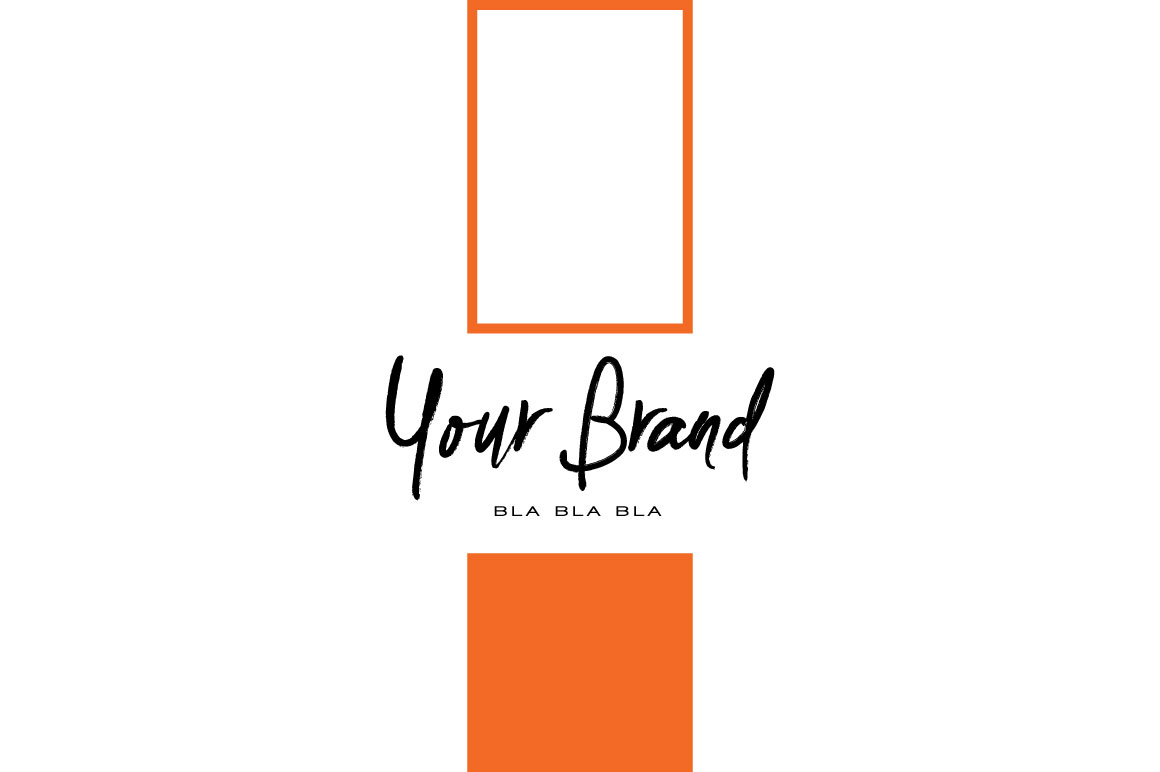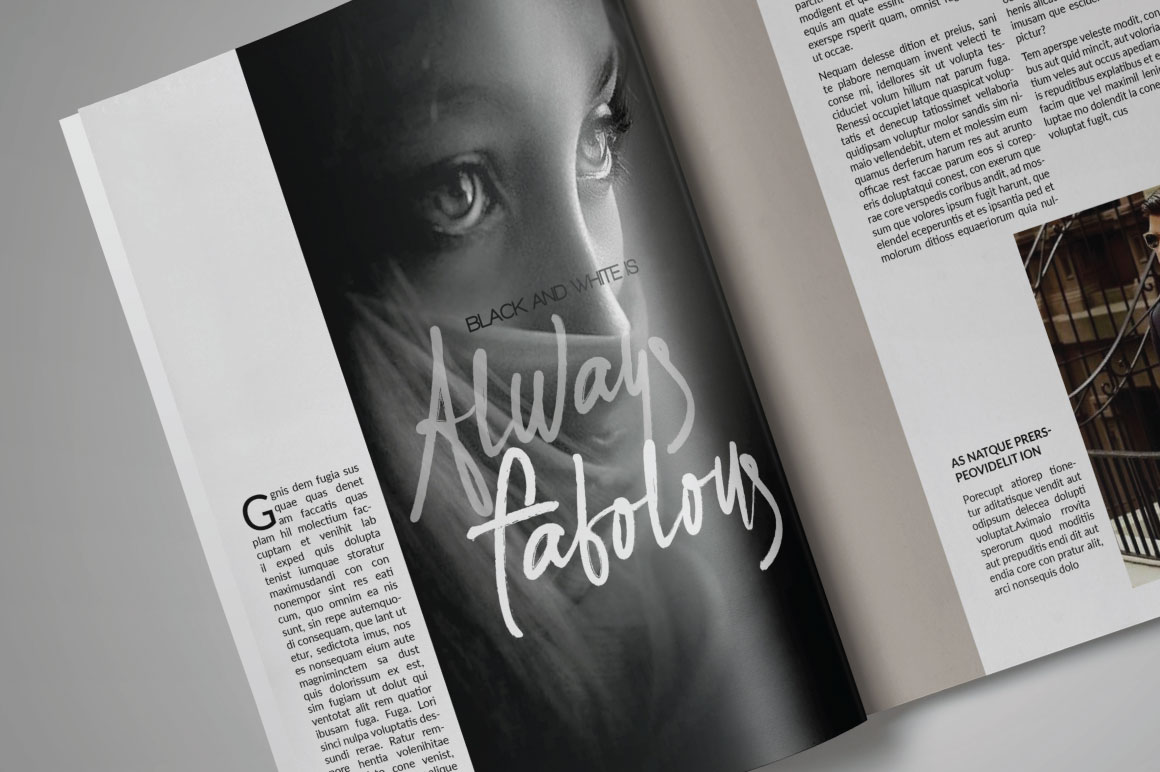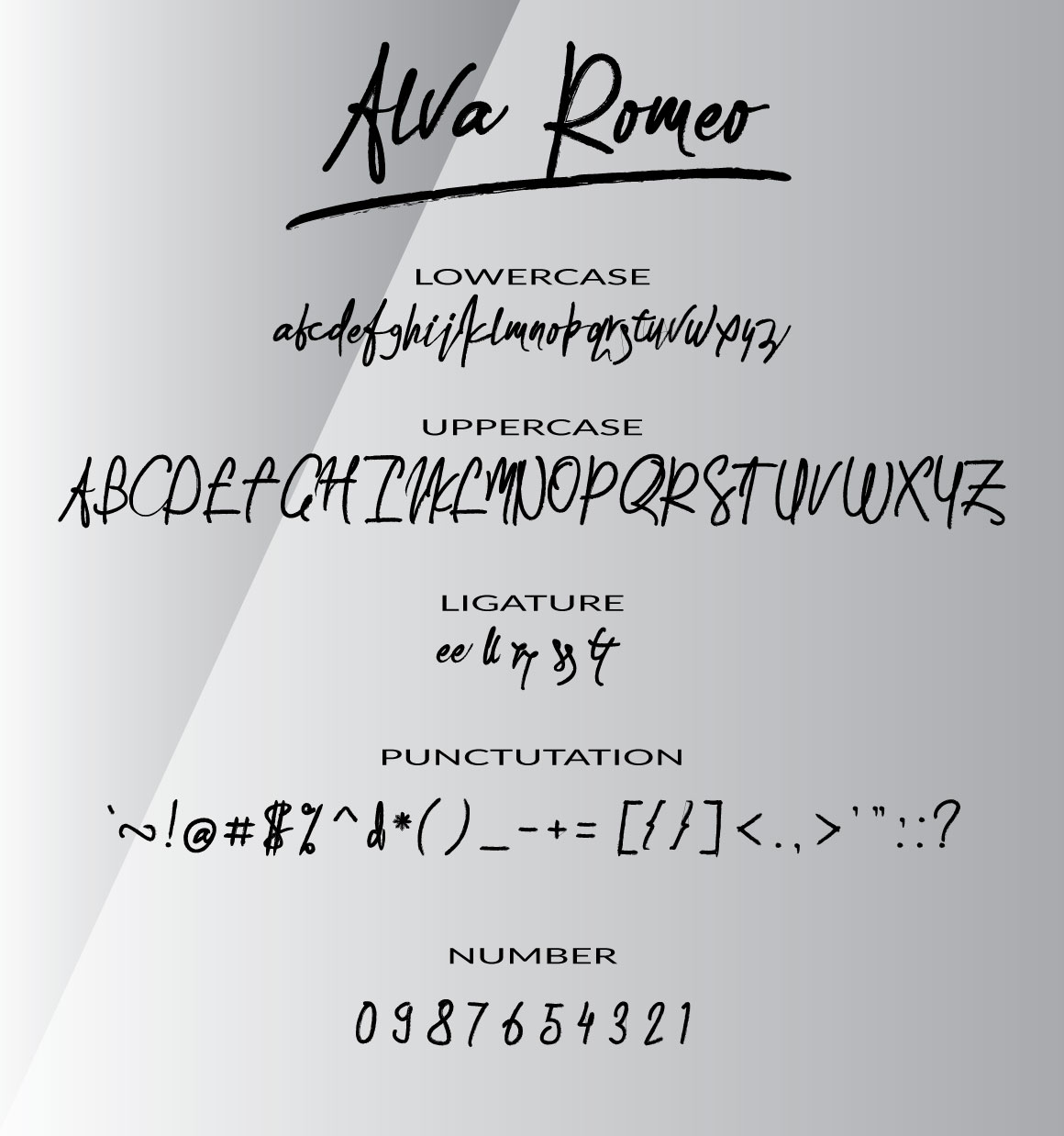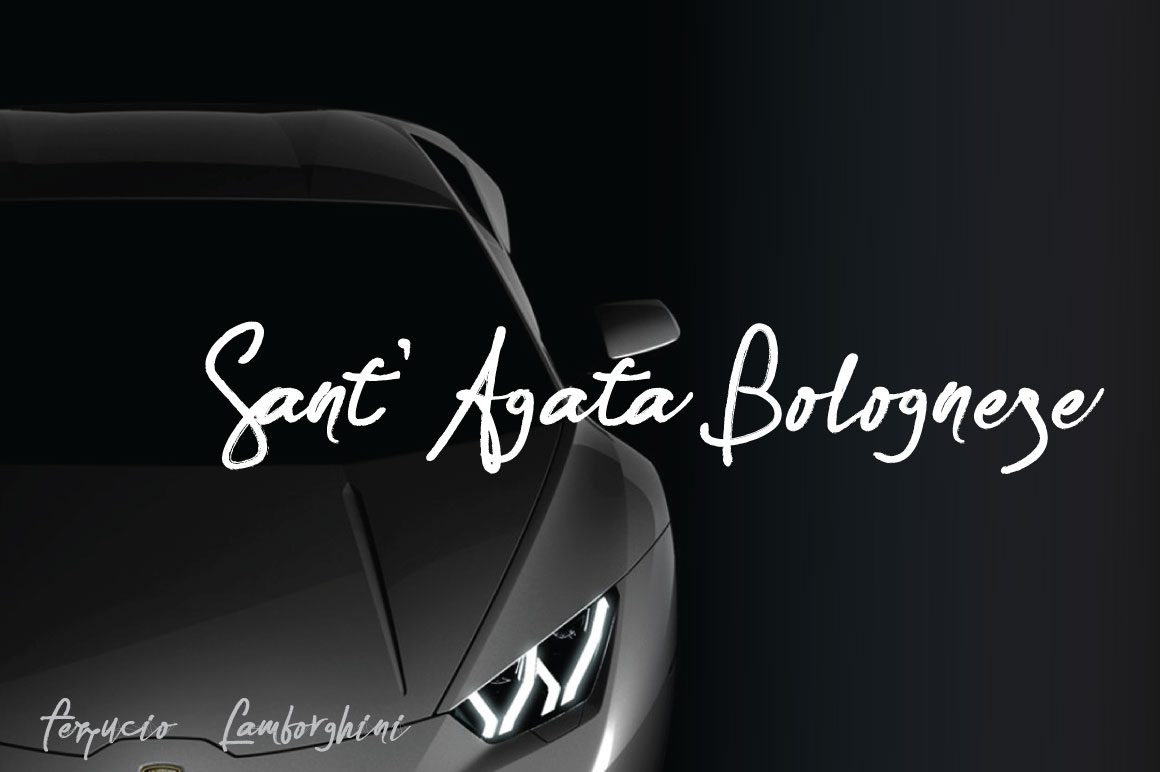
Introducing Alva Romeo Font: A Handwritten Typeface for Personalized Designs
Are you tired of using the same old fonts in your designs? Do you want to add a personal touch to your projects? Look no further than Alva Romeo Font, a beautiful handwritten typeface that’s perfect for crafters, designers, and anyone looking to add a unique flair to their work.
What is Alva Romeo Font?
Alva Romeo Font is a carefully crafted handwritten typeface that’s designed to bring a touch of personality to your designs. With its elegant and flowing script, Alva Romeo is perfect for a wide range of projects, from wedding invitations and greeting cards to branding and packaging.
Key Features of Alva Romeo Font
• Handwritten with love: Alva Romeo Font is a true handwritten typeface, crafted with care and attention to detail to give your designs a personal and authentic feel.
• Unique and elegant: With its flowing script and beautiful letterforms, Alva Romeo Font is sure to stand out from the crowd and add a touch of sophistication to your designs.
• Highly versatile: Whether you’re working on a wedding invitation, a logo, or a social media graphic, Alva Romeo Font is the perfect choice for adding a personal touch to your designs.
Why Choose Alva Romeo Font?
So why choose Alva Romeo Font over other typefaces? Here are just a few reasons:
• Add a personal touch: With Alva Romeo Font, you can add a personal touch to your designs that’s sure to resonate with your audience.
• Stand out from the crowd: In a world of generic fonts, Alva Romeo Font is a breath of fresh air – a unique and beautiful typeface that’s sure to make your designs stand out.
• Perfect for crafters and designers: Whether you’re a professional designer or a crafter working on a hobby project, Alva Romeo Font is the perfect choice for adding a touch of elegance and sophistication to your work.
• Experiment with different sizes and colors: Alva Romeo Font looks great in a wide range of sizes and colors, so don’t be afraid to experiment and find the perfect combination for your design.
• Pair with other fonts: Alva Romeo Font pairs beautifully with other fonts, so try combining it with a bold or sans-serif font for a unique and interesting look.
• Use it for headlines and titles: Alva Romeo Font is perfect for headlines and titles, where its elegant script can really shine.
Alva Romeo Font is a beautiful handwritten typeface that’s perfect for adding a personal touch to your designs. With its elegant script and highly versatile design, Alva Romeo Font is the perfect choice for crafters, designers, and anyone looking to create unique and personalized designs. So why wait? Download Alva Romeo Font today and start creating stunning designs that stand out from the crowd!